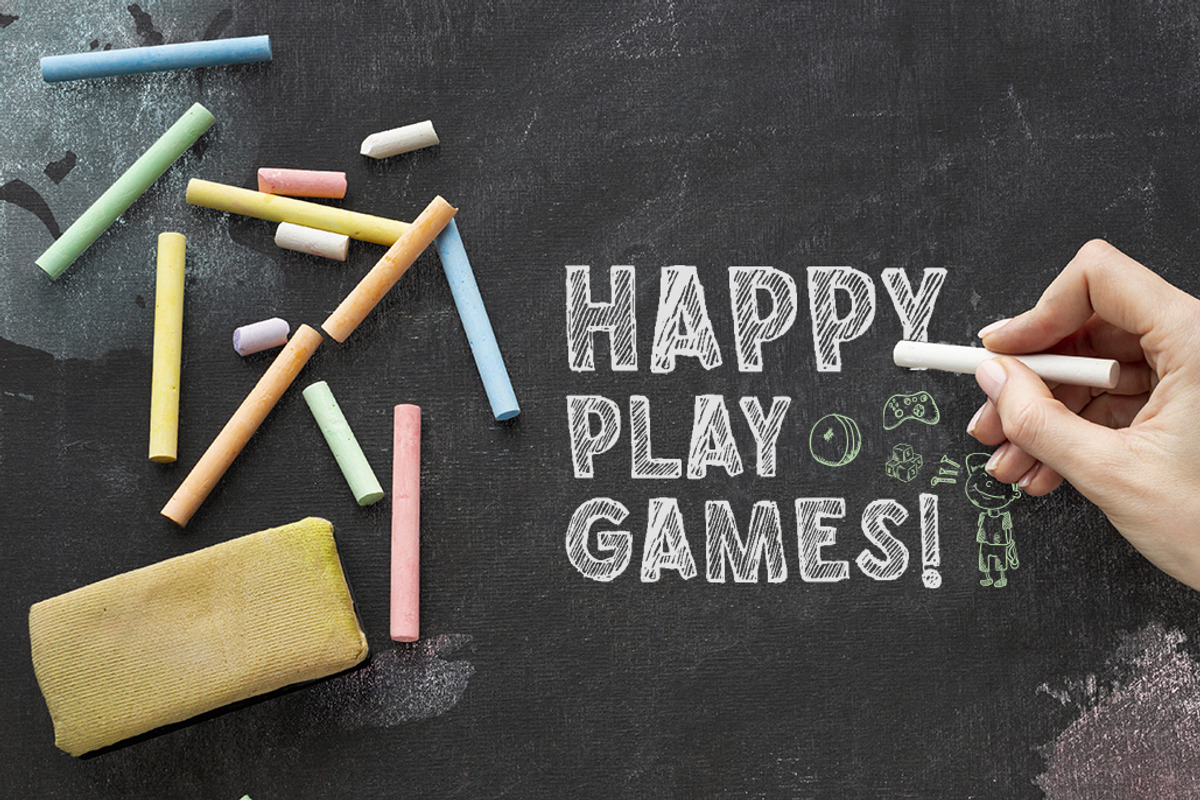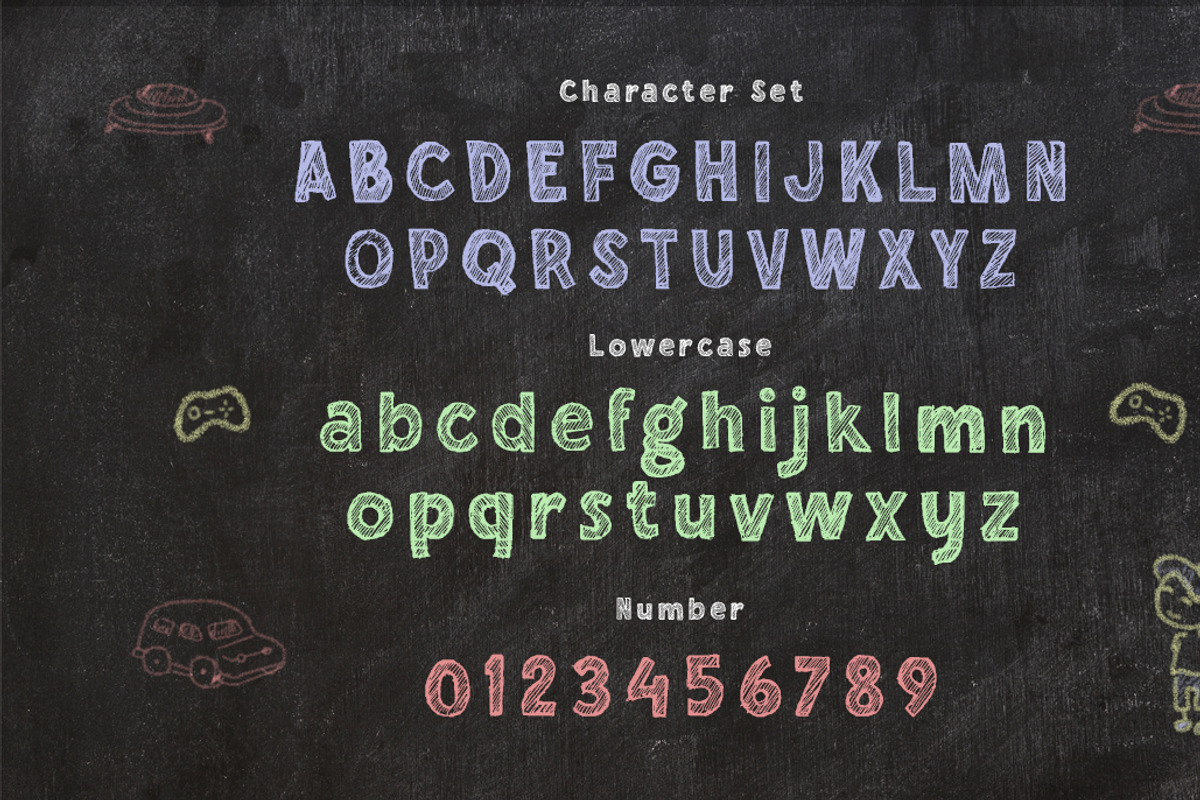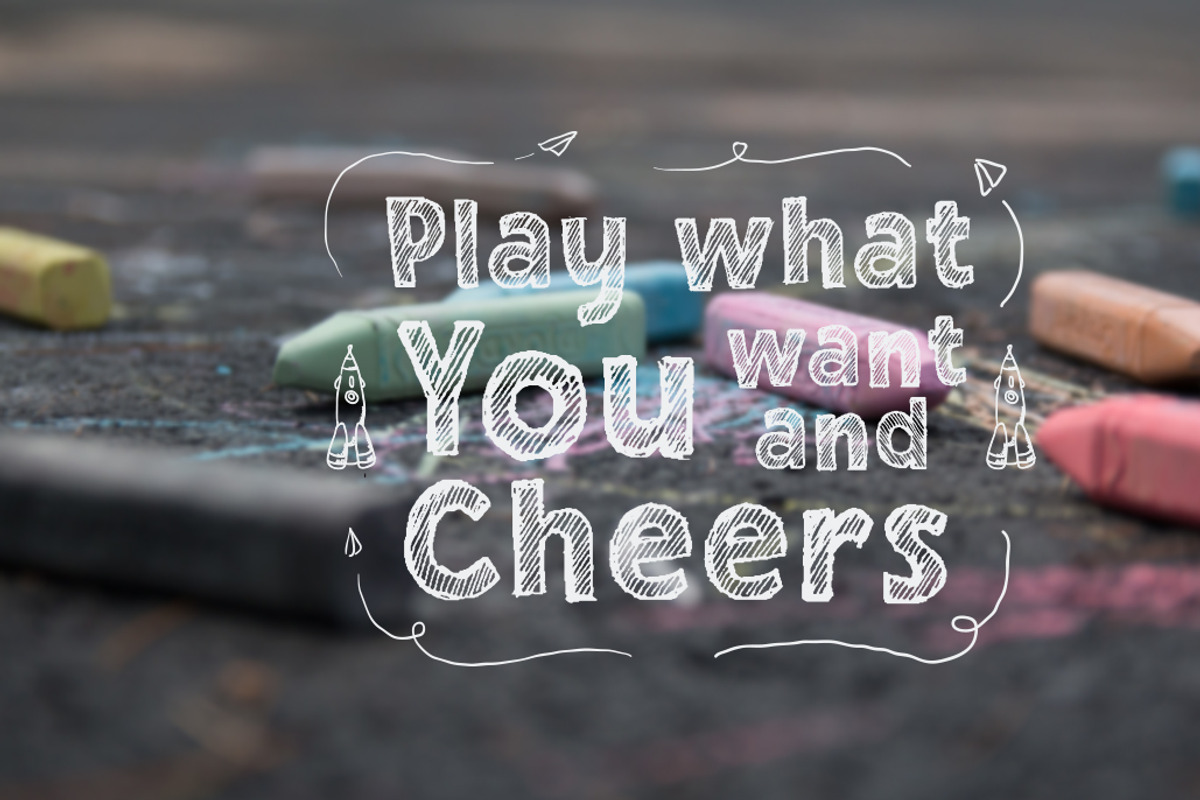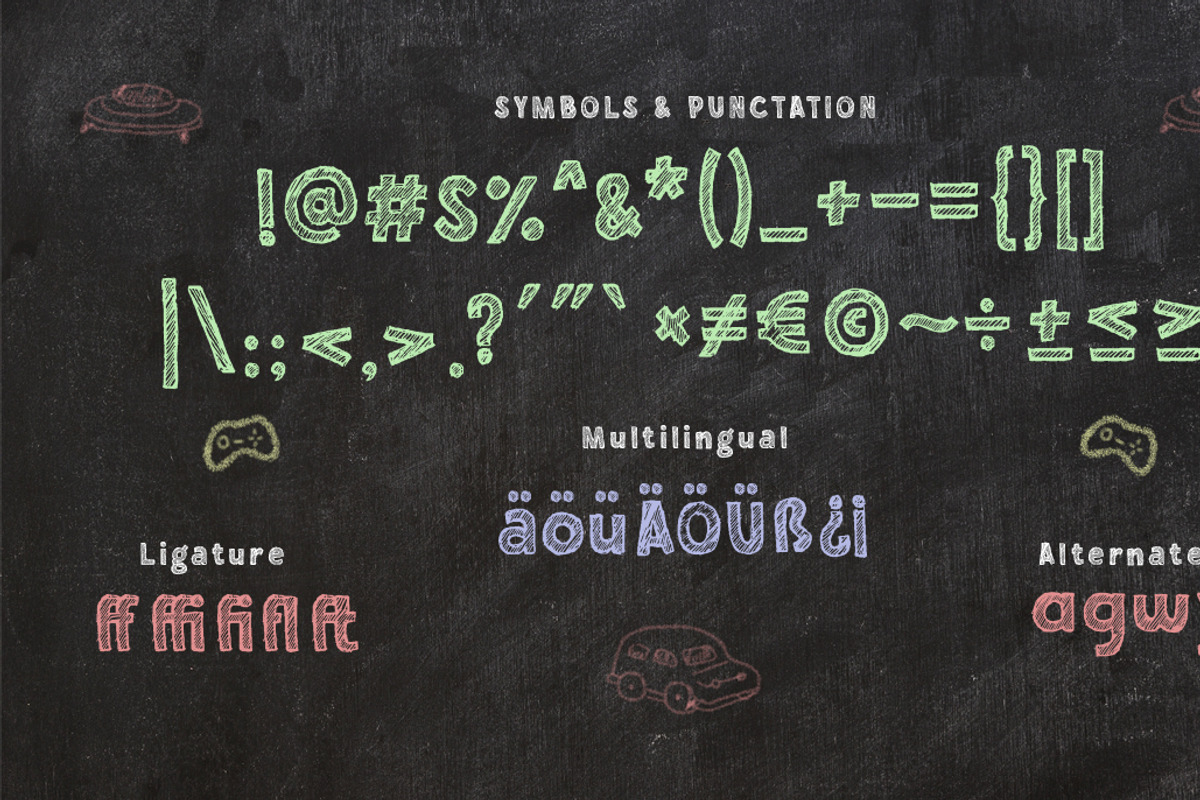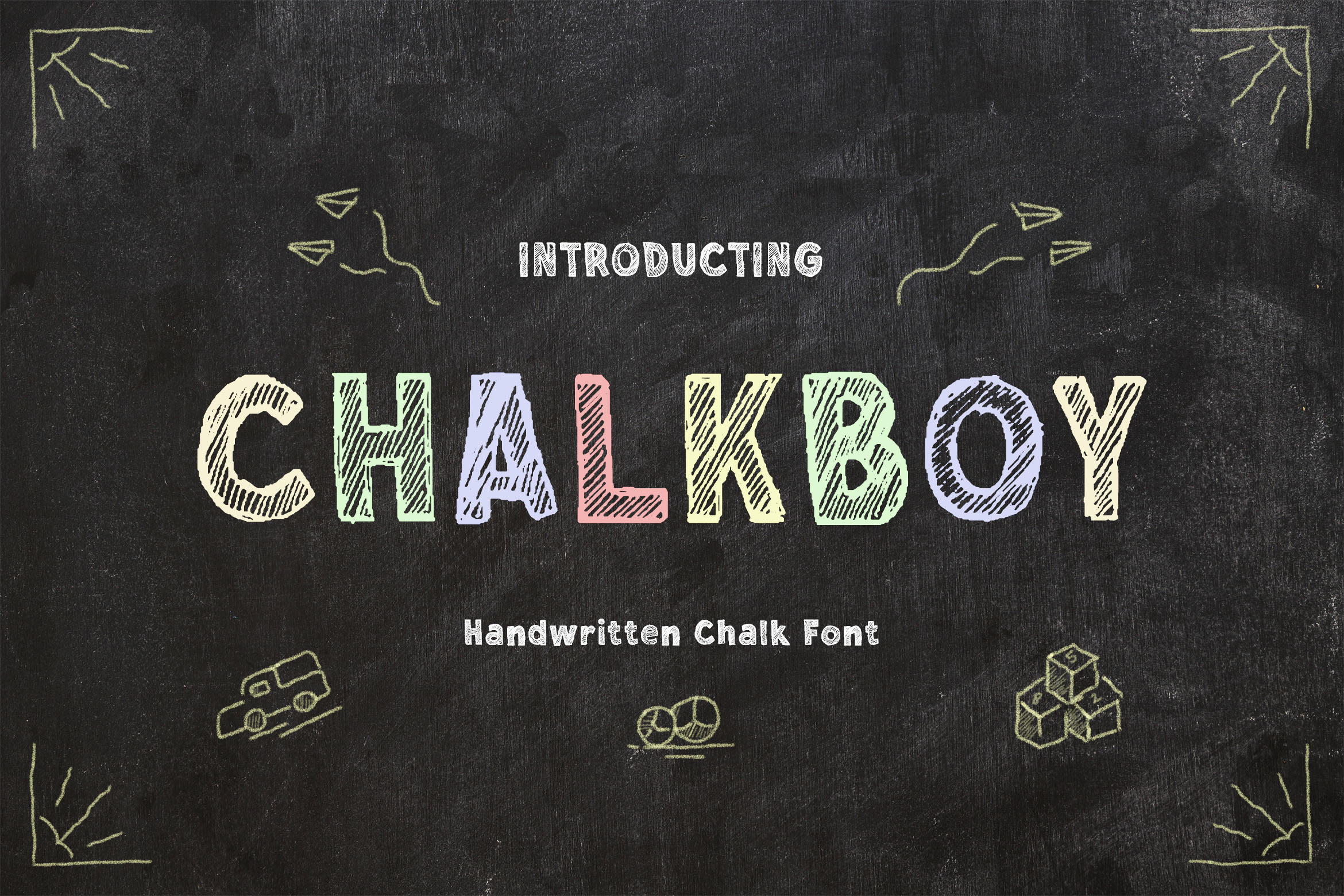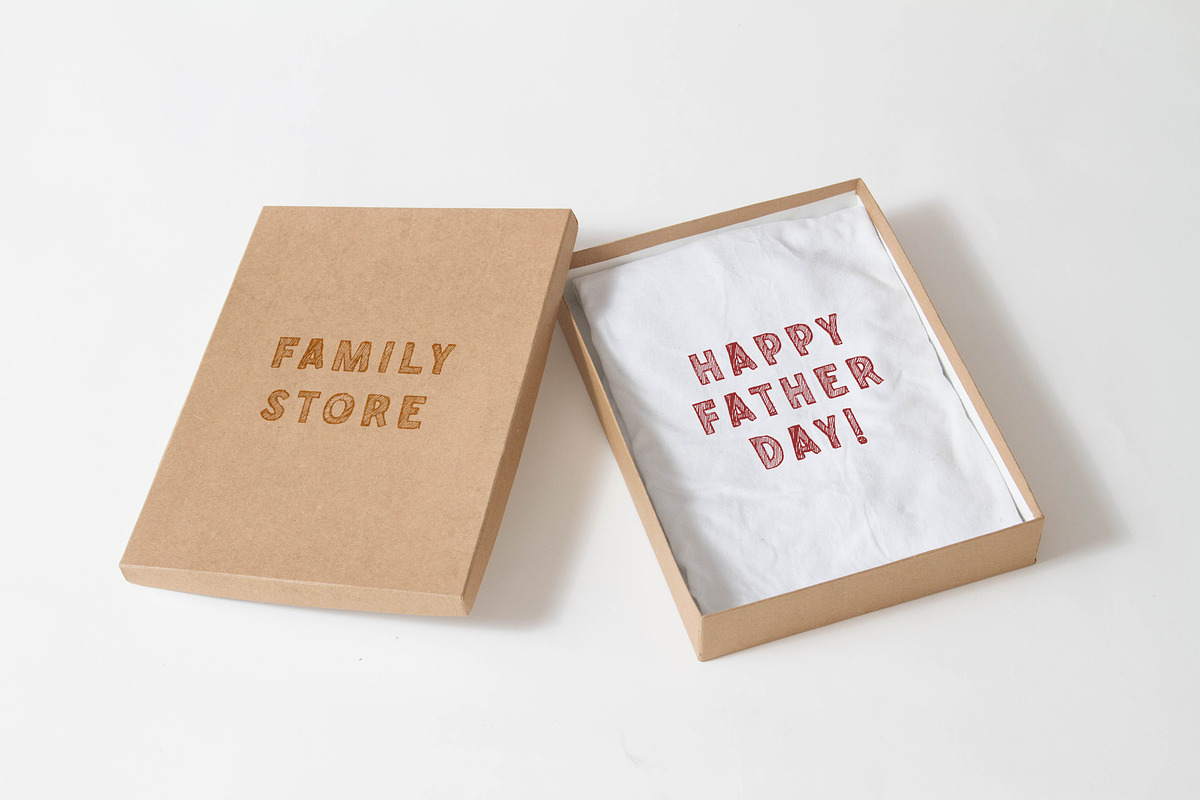
Chalkboy – Handwritten Chalk Font
Chalkboy – Handwritten Chalk Font is a fun and casual display font suited for kids, playground, or school theme. Whether you’re using it for crafting, digital designing, presentations, or greeting card making, it’s perfect!
Handwritten fonts are designed to emulate handwritten script or cursive text. 8 key characteristics of handwritten fonts: • Irregular and uneven stroke widths. Handwritten letters have variable width strokes to look more natural and loose. Machine-printed fonts typically have very consistent stroke widths. • Joined letters. Handwritten fonts join the letters together at the Baseline, Ascent line, and Descend line to make the text look more connected and flowy. • Uneven sizing. Letters vary slightly in size and width, unlike the rigid sizing of most printed fonts. Some letters may be compressed while others have more room. • Flourishes and serifs. Handwritten fonts often have extra stub serifs, flourishes, and embellishments to decorate the letters. Things like little curls, dots, dips and swirls. • Slanted or skewed axes. The vertical and horizontal axes of the letters may be slanted or skewed to give a casual, sloped look. • Personal style. Every person has a unique handwriting style. So handwritten fonts aim to capture that range of personal styles and make them usable as fonts. • Expressive and creative. Handwritten text tends to look very expressive, creative and artistic. So handwritten fonts suit headings, title text, invitations, quotes, and other expressive uses. • Imperfections. Authentic handwriting has small imperfections like wobbly lines, smudges, splatters and strokes that don’t quite meet. Handwritten fonts often model some of these imperfections to look less “perfect.” That covers the key attributes and characteristics of handwritten or cursive fonts.
Here is a paragraph describing a Handwritten Chalk Font: Handwritten Chalk Font is designed to emulate the look of text written in chalk. It features a creamy, faded white color with a dusty finish. The letters are irregular in thickness and height, with variable embellishments that make the text look gracefully messy. Curls, drips, spills and smudges are common in chalk handwriting.
The Handwritten Chalk Font captures that essence. The letters join together but also have subtle gaps, as if the chalk was gently dragged across the surface. Portions of letters fade slightly or feather out for a soft, blending effect. The contrast is bright white against a nearly invisible off-white surface, so the text pops but still feels ethereal.
Overall, Handwritten Chalk Font gives you expressive, whimsical text that looks beautifully imperfect and hand-done. It’s perfect for evocative quotes, dreamy heading text, distressed signage, recipe cards, or anywhere a light and porous handwritten feel is desired. The subtle textures and imperfections make the text feel nostalgic yet whimsical. The Handwritten Chalk Font brings elegant and whimsical chalk handwriting to any design.
8 tips for using a Handwritten Chalk Font in your designs: • Use it sparingly for headlines or quotes. Due to its unique style, Handwritten Chalk Font works best used sparingly as an accent rather than a body text. It’s perfect for short headings, titles, subtitles, sidebars, or quotes.
• Pair it with a simple sans-serif. To ensure readability, pair your Handwritten Chalk Font with a legible sans-serif font for body text. Together they create nice contrast while still feeling cohesive.
• Apply a subtle chalk or linen texture. To enhance the handcrafted feel, apply a light chalk, linen or paper texture under the text. You don’t want it too heavy, just enough to accentuate the porous strokes.
• Use a warm, off-white background. A light ivory, linen white or sun-faded yellow make excellent backgrounds for Handwritten Chalk Font. They help bring out the soft creamy beauty of the chalk text.
• Stagger and adjust tracking for a messy effect. When using multiple lines of text in Handwritten Chalk Font, stagger the baselines or adjust the tracking to make the text appear uneven in a carefree, imperfect way.
• Play with drips and spills. Some chalk fonts allow you to easily apply drip and spill effects that make the letters run together and bleed at the edges, just like real chalk. Use sparingly but these effects can be stunning.
• Use it for props or 3D elements. If you’re designing objects, invitations or other 3D elements, Handwritten Chalk Font has the rich, textured look needed to seem genuinely handcrafted. It would be perfect for wooden crates, rustic signage and more.
• Consider bleed-off and feathering. When placing chalk text on colorful or patterned backgrounds, keep an eye out for how the text edges may bleed off or feather into the background. You want the contrast and handcrafted lines to remain legible when the edges soften.